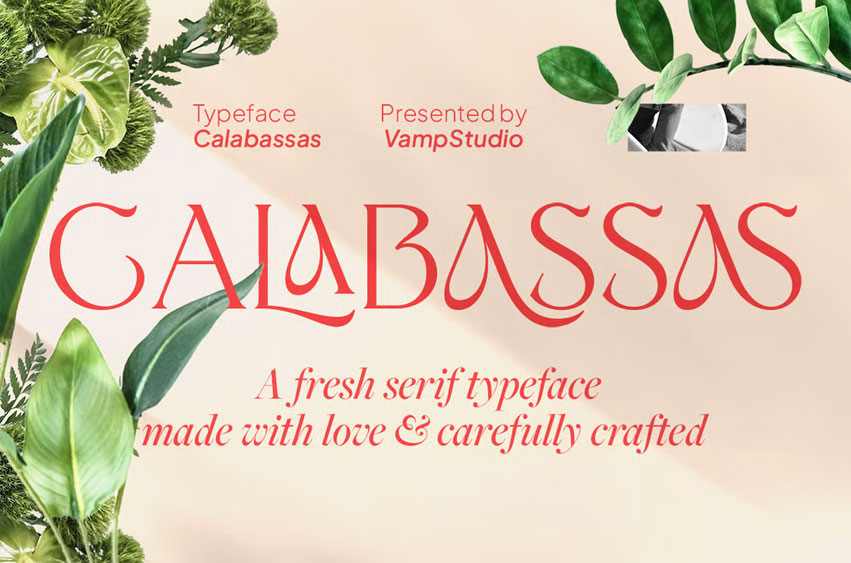
Calabassas Font is an elegant luxury serif typeface that captures timeless beauty with modern sophistication. Designed with high contrast strokes, unique alternate characters, and graceful curves, Calabassas delivers a refined aesthetic for brands that value class and creativity.
Perfect for logos, magazine titles, cosmetics, packaging, fashion branding, invitations, and high-end advertising, this font blends classic serif style with a touch of artistic flair.
- Stylish alternates for A, E, H, K, P, Q, R
- Perfect for luxury branding, editorial design, and packaging
Make your next design unforgettable with Calabassas — a statement serif that embodies grace, fashion, and timeless beauty.